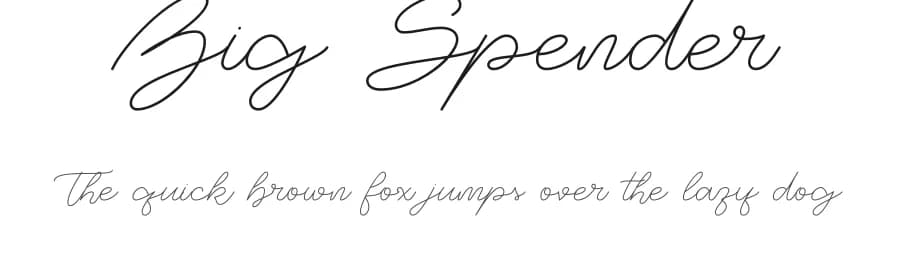
About Big Spender Font
Big Spender is thought more as a signature font, something to resemble the handwritten of a person. Big Spender was thought and named in the idea of signing checks, papers and similar.
| Designer | Bogdan Casota |
Big Spender Font is a script font that shines as a display or heading face. Pair it with a clean sans-serif or serif font for body text β the contrast creates a clear hierarchy while the two styles stay balanced and easy to read.
Big Spender Font